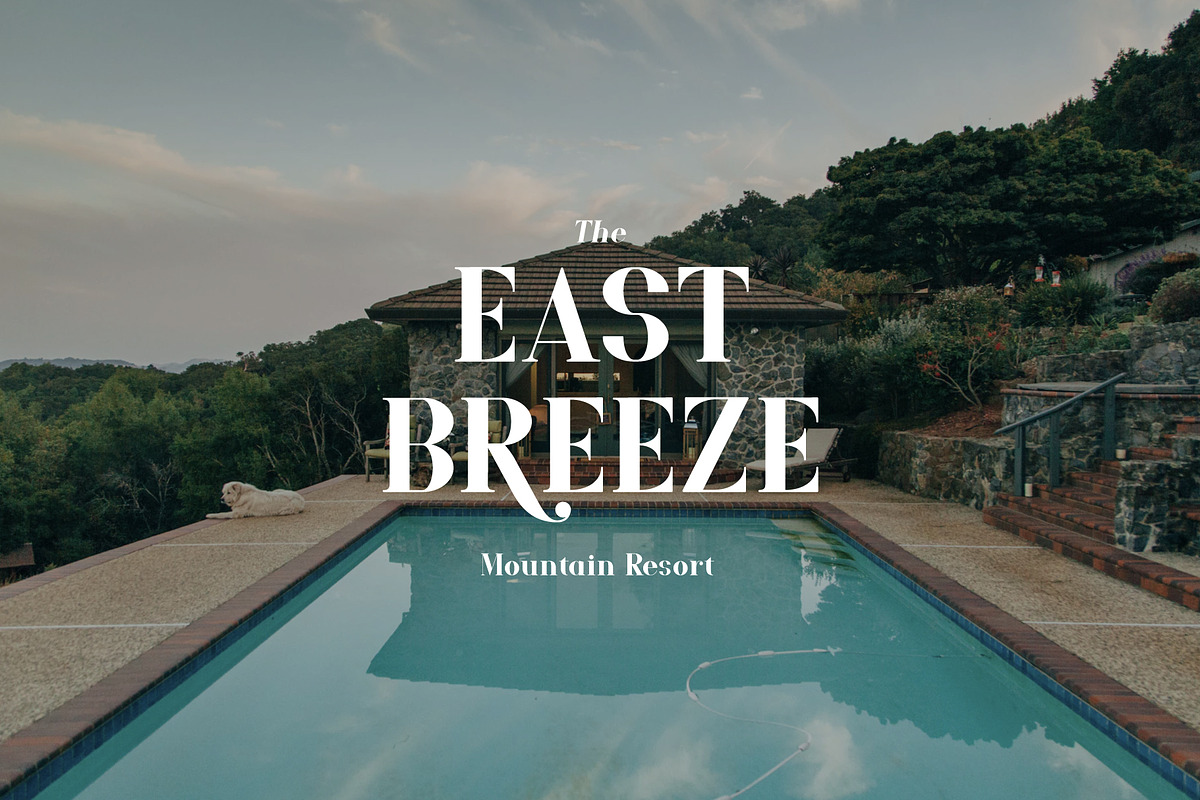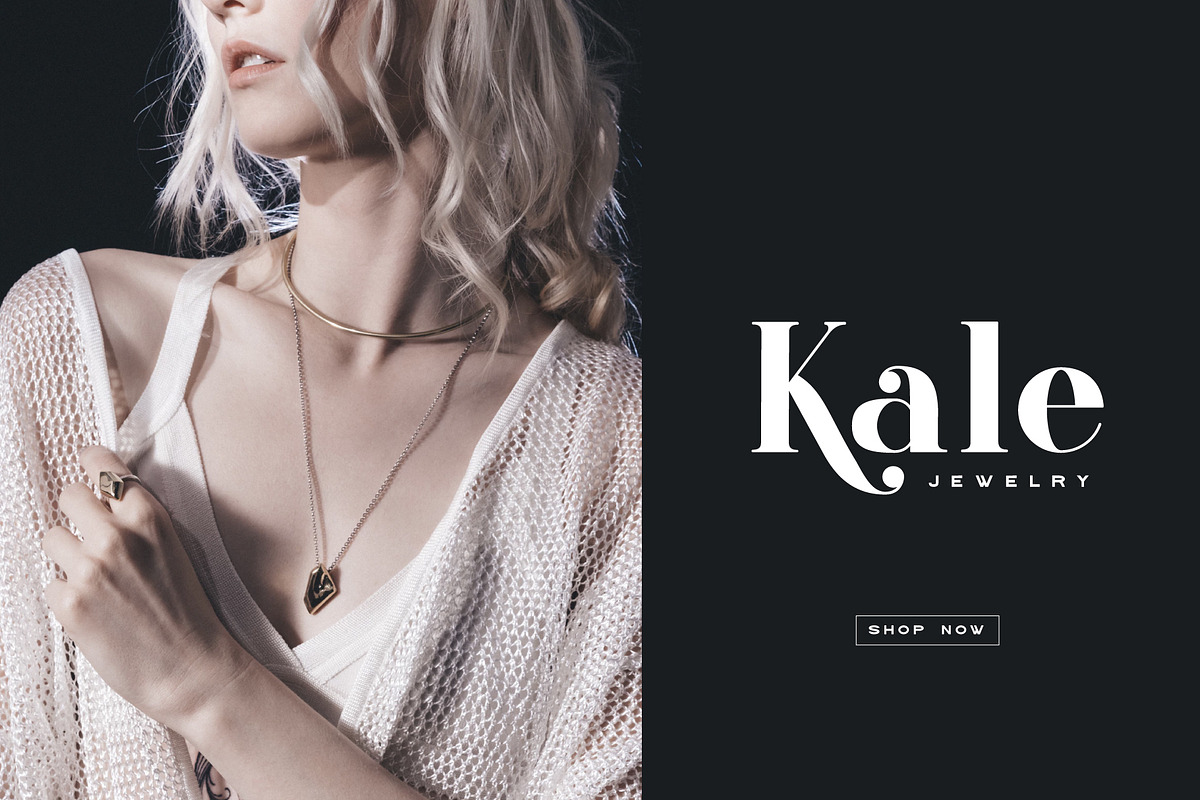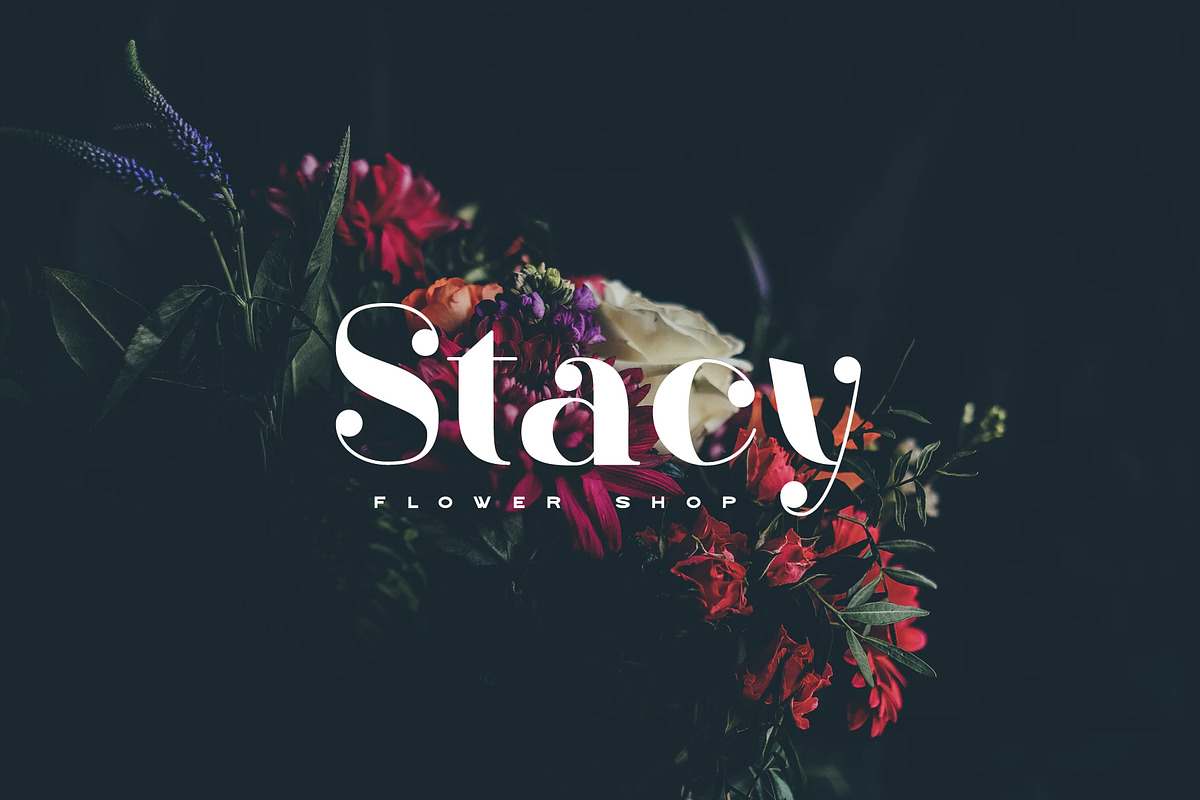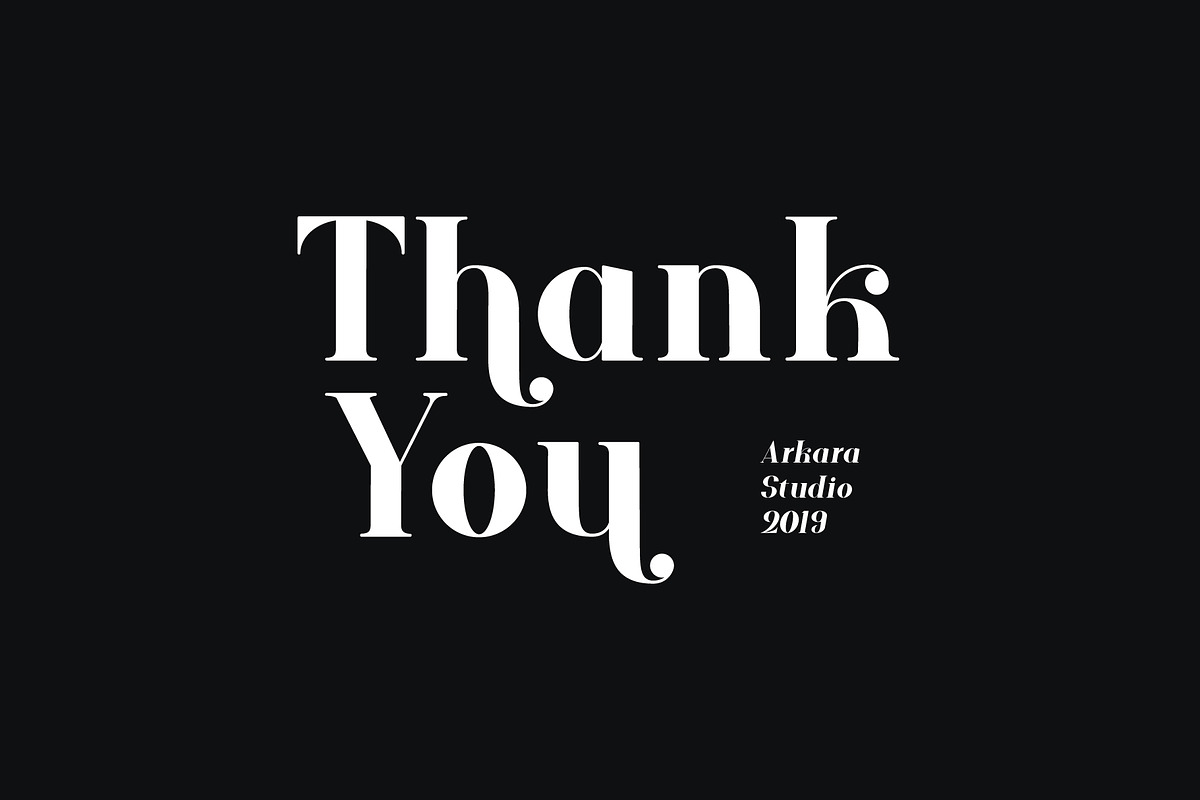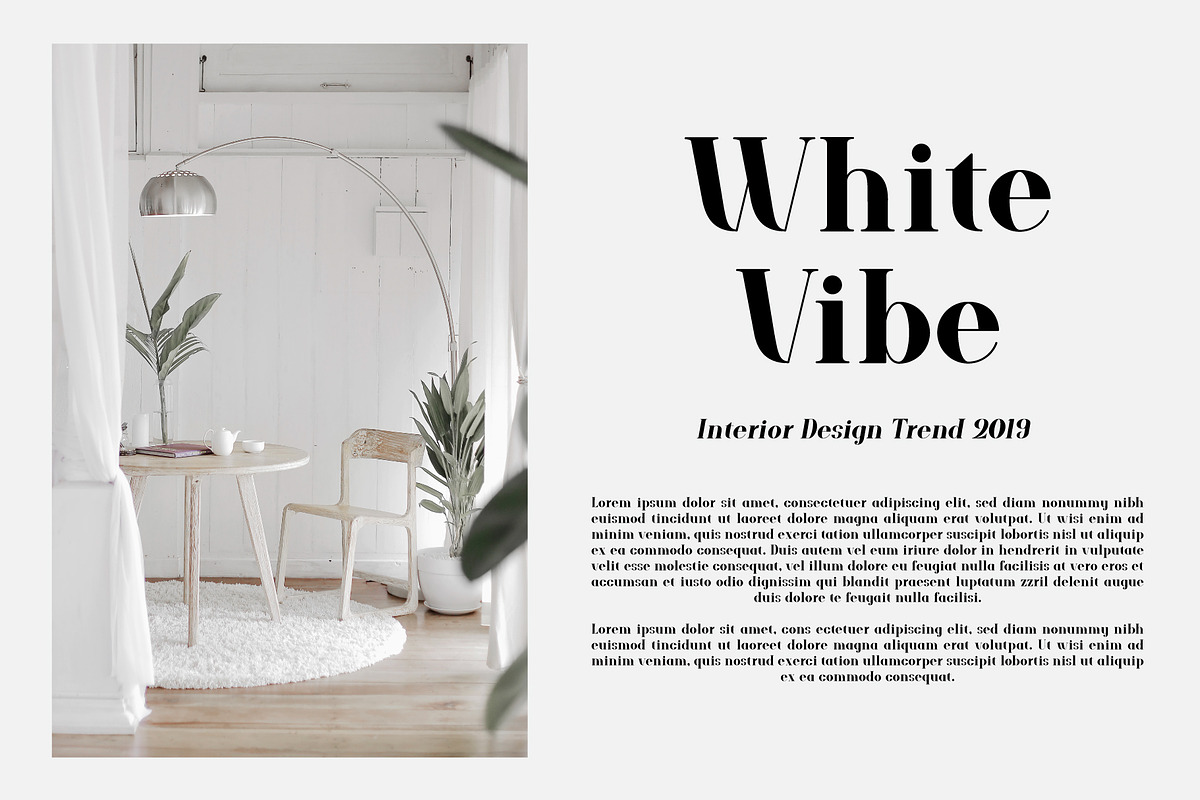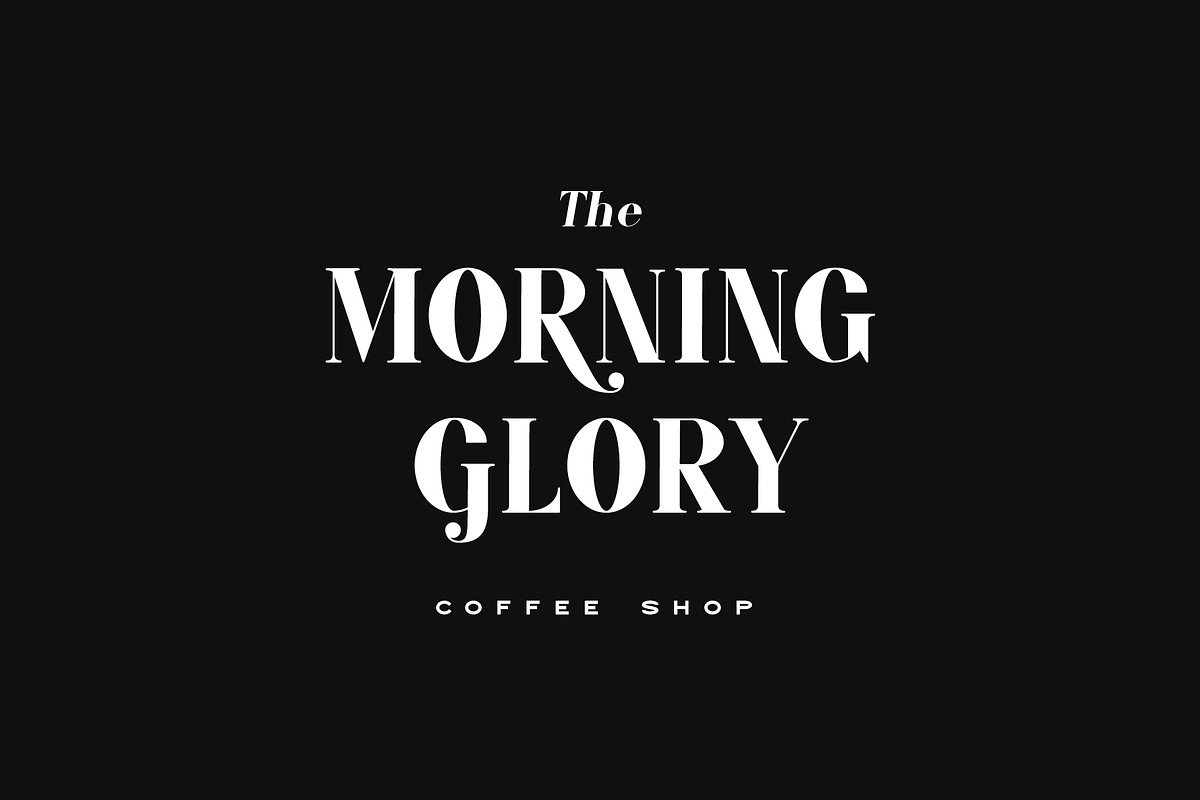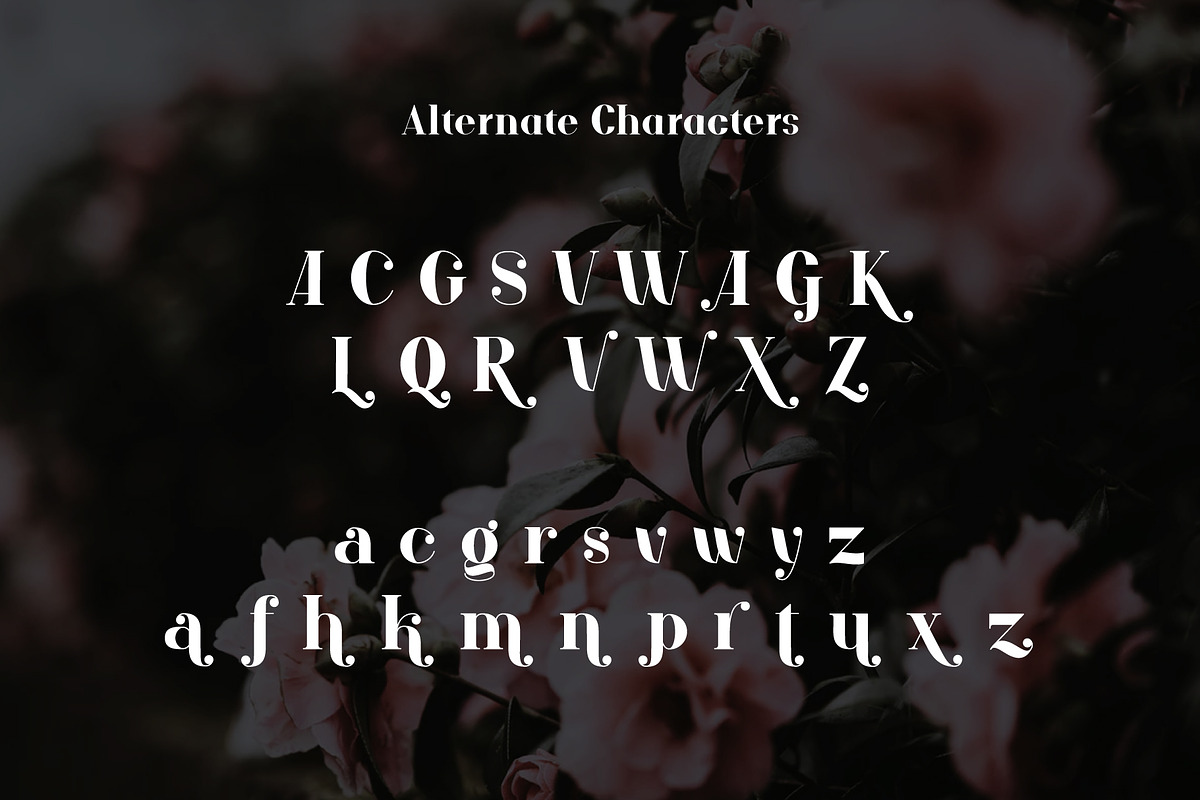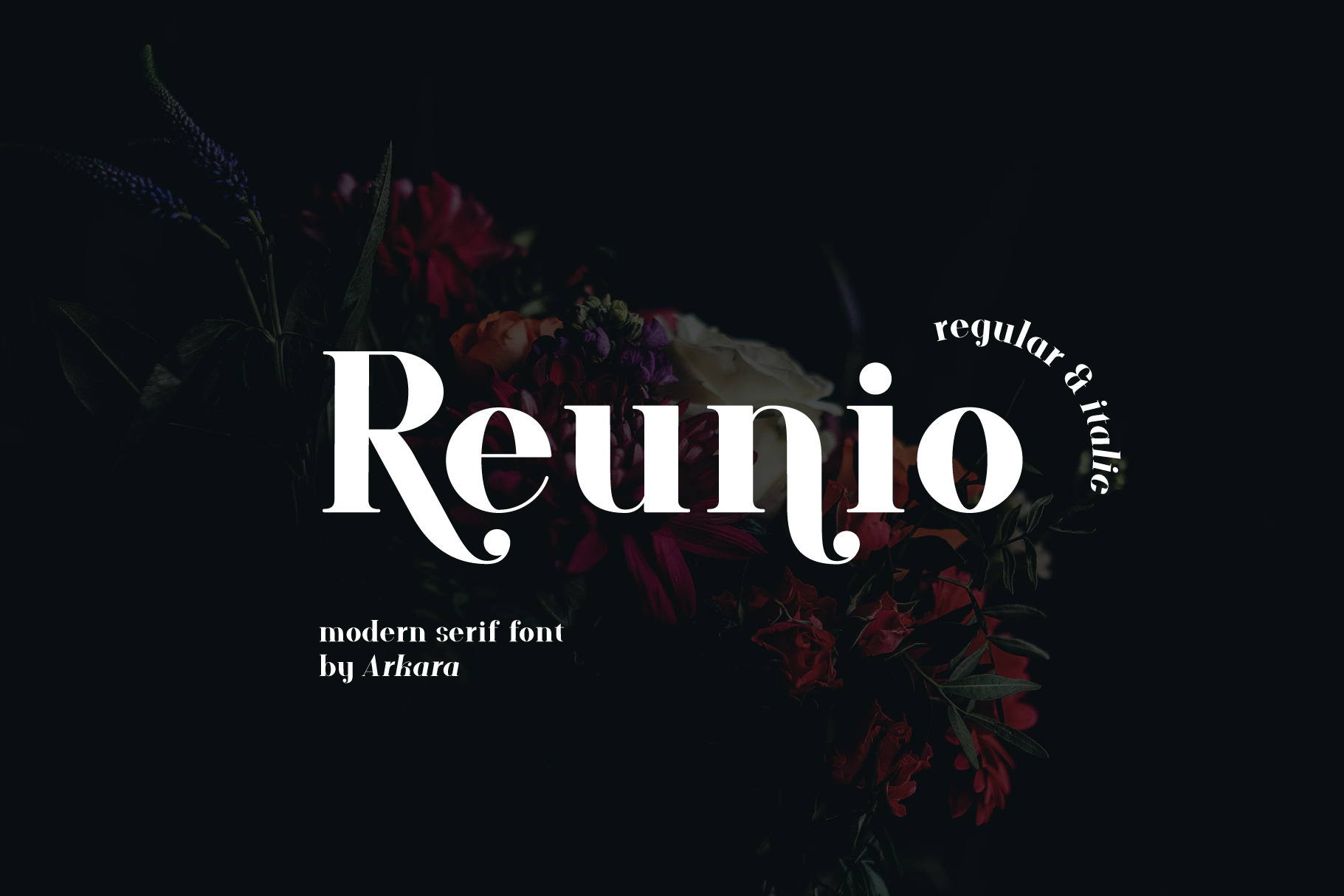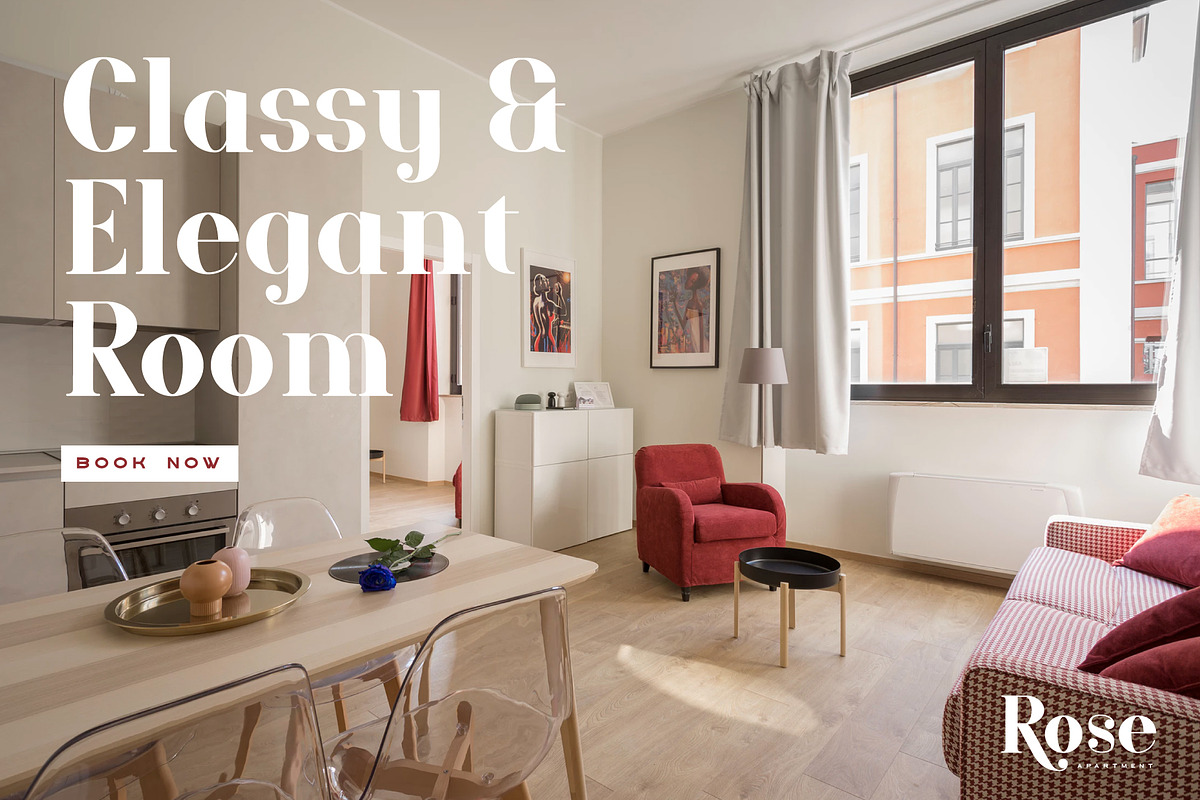
ARK Reunio - Modern Serif Font
ARK Reunio is modern serif font and elegant font, you can use for various purpose like headline, logos, posters, t-shirt, post cards, bussiness card, and much more. We adding some alternate character, so you can get more fashionable and elegant looks.
OpentypeFeatures :
- Stylistic Alternate